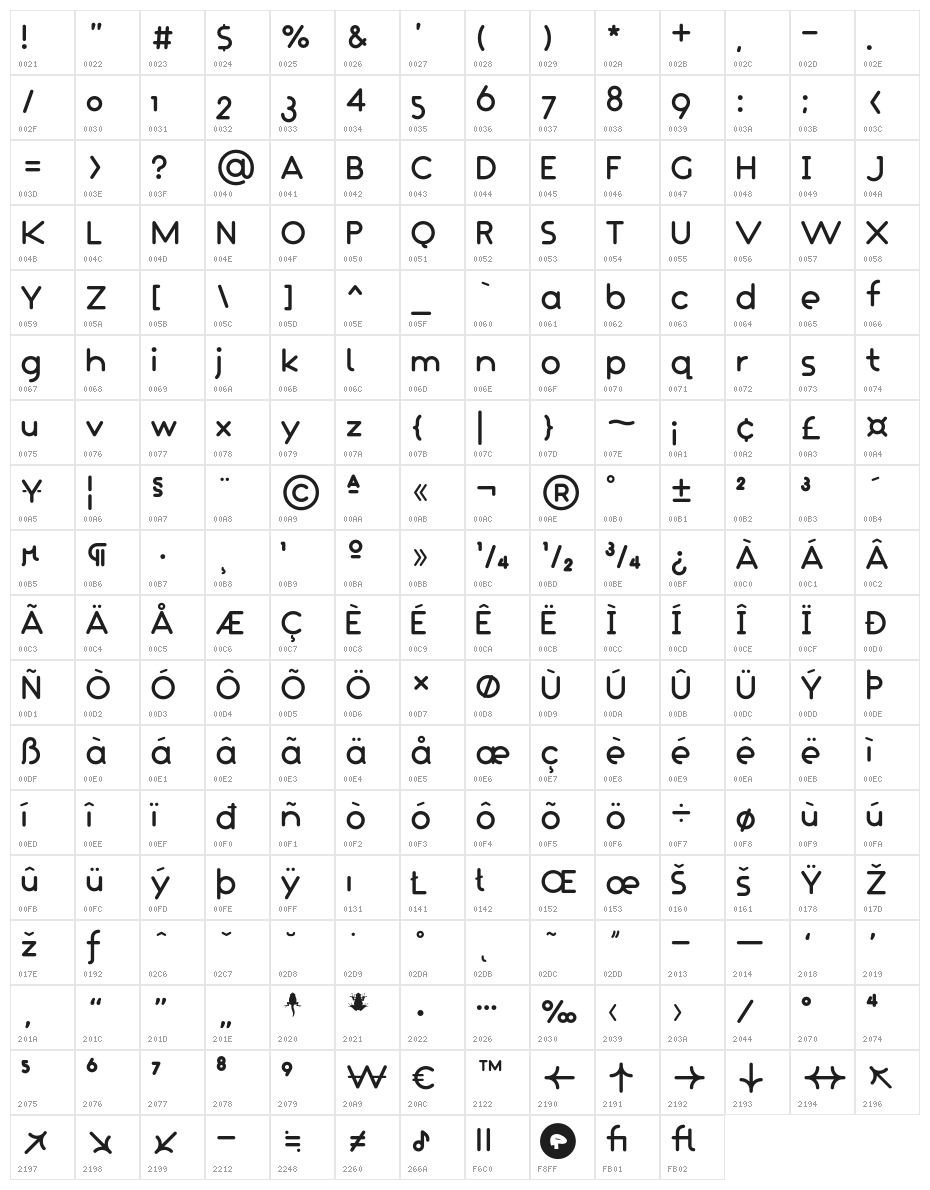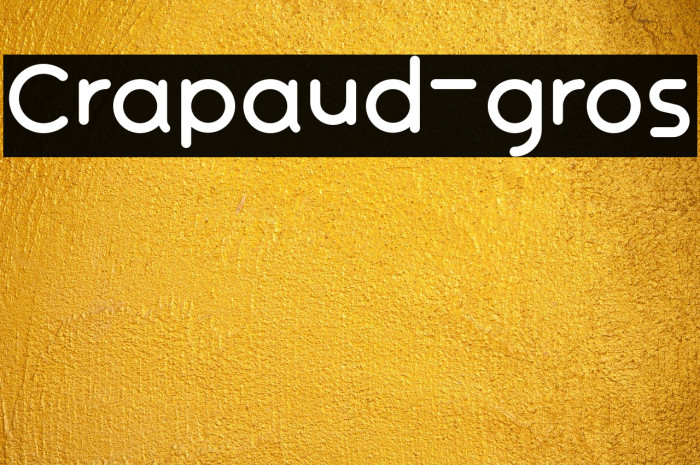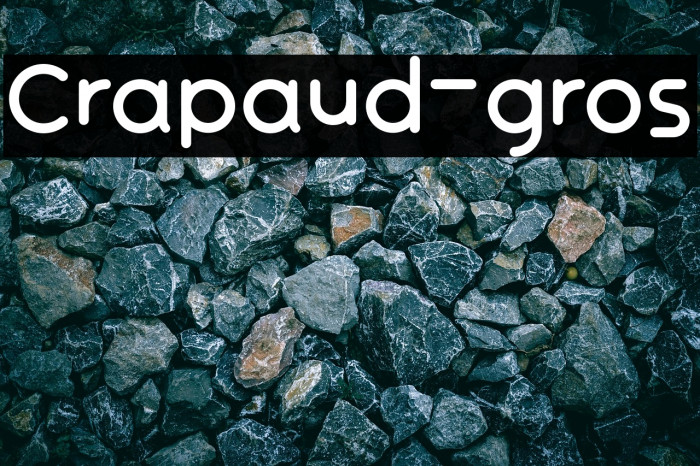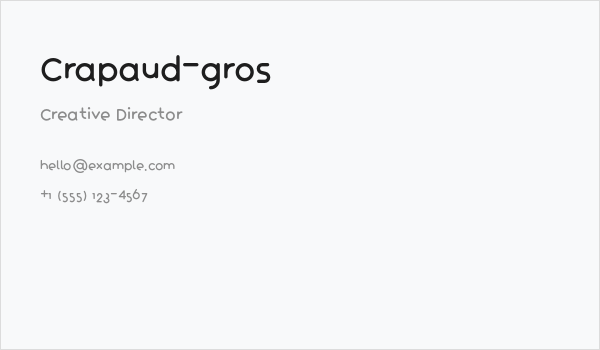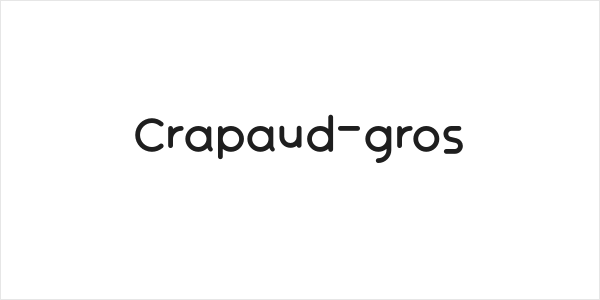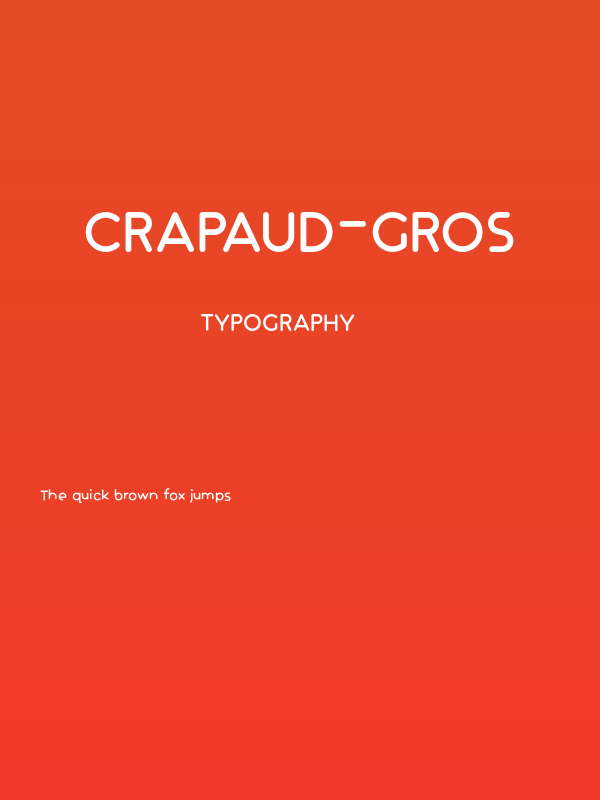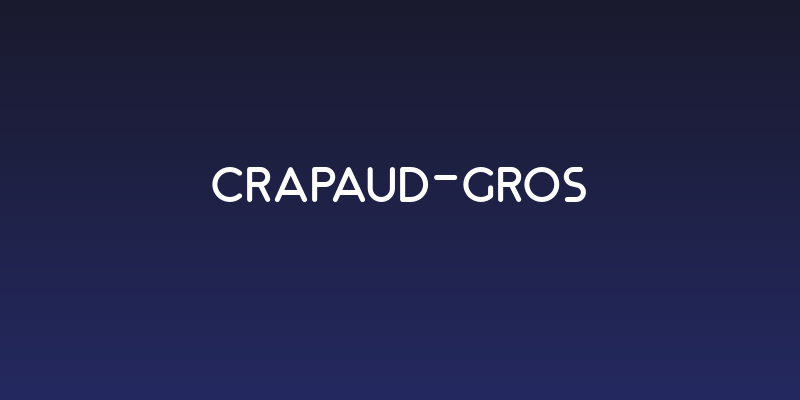
Crapaud-gros Font
Crapaud-gros Description
This font features a playful and rounded design, characterized by its smooth curves and uniform stroke width. The letters are evenly spaced, providing a clean and approachable appearance. The uppercase and lowercase letters maintain a consistent style, with rounded edges that give a friendly and modern feel. The numerals and special characters are designed to match the overall aesthetic, ensuring a cohesive look across all text elements. This font is versatile, suitable for various applications where a casual and inviting tone is desired.
| Use Case | Headlines, Logos, Digital interfaces |
| Proposed Projects | Ideal for children's books, playful branding, casual invitations, and friendly digital interfaces. |